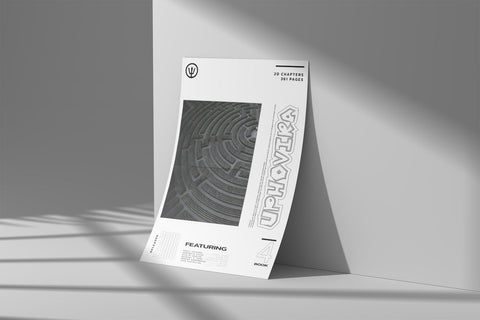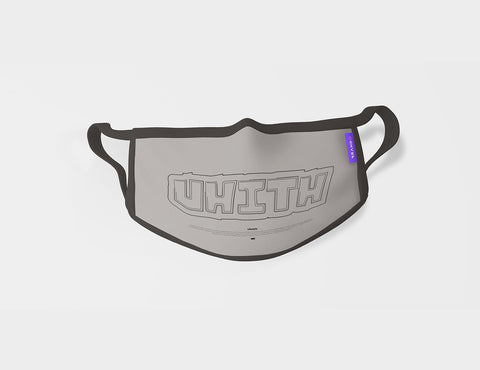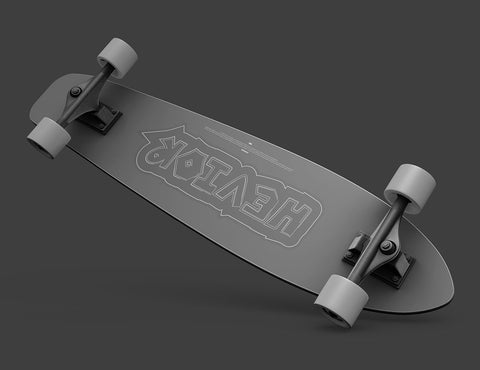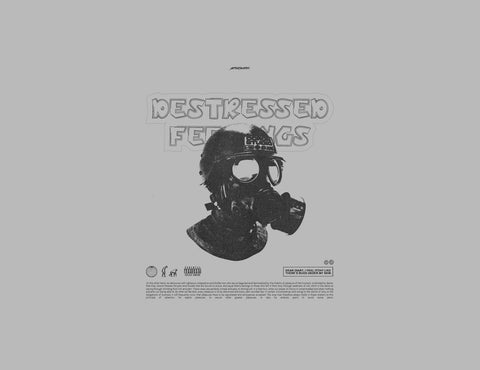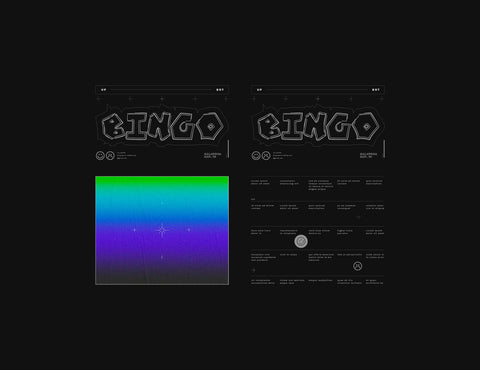
Greda Handwritten Display Font
Greda Handwritten Display Font, this display font is inspired by wooden blocks that have a beautiful texture. 2022 introduces "GREDA" which is made to be one of the factors that make your design more beautiful and dashing. Be firm and still look beautiful. is not suitable to describe this one font. It would be an honor if this beautiful font could make your design more aesthetic. Of course this font is suitable for invitation card designs, social media post, greeting cards, posters and any design.
• OpenType Features (Stylistic Set)
• Numerals & Punctuations